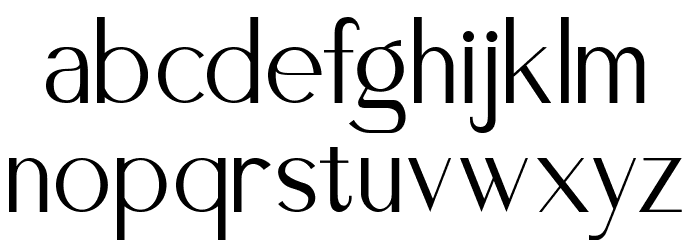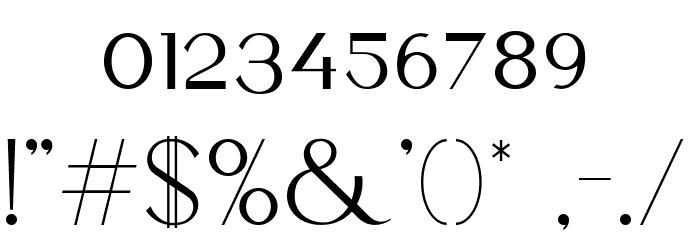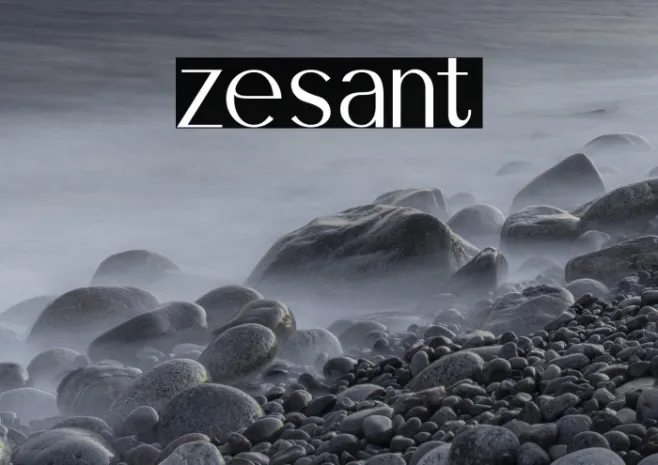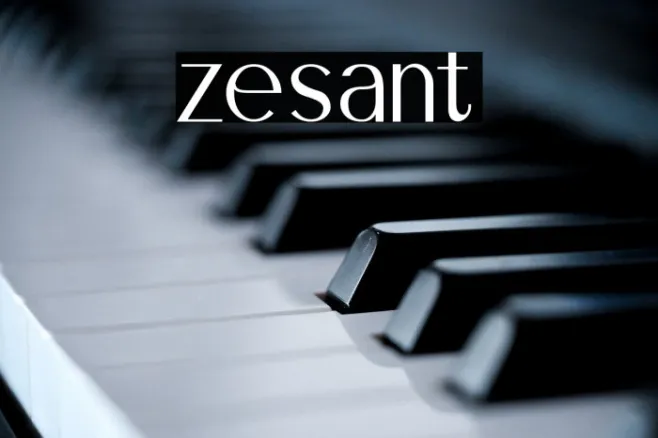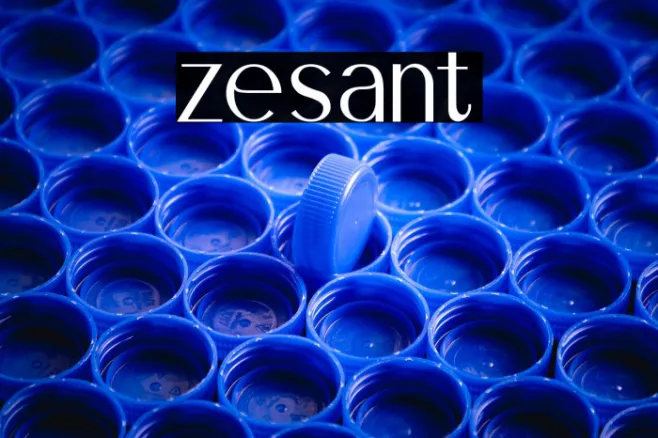
zesant Font
This font features a modern and sleek design with a high contrast between thick and thin strokes, giving it a sophisticated and elegant appearance. The uppercase letters are tall and slender, while the lowercase letters maintain a consistent style with slightly rounded edges, adding a touch of softness to the overall look. The numerals are clear and distinct, ensuring readability. Special characters are designed with the same attention to detail, making them harmonize seamlessly with the rest of the typeface. This font is versatile, suitable for both digital and print media, and can be used to create a contemporary and stylish aesthetic.
A modern, high-contrast font with sleek, elegant lines.
- Proposed Projects: Ideal for branding, editorial design, fashion magazines, and luxury product packaging.
- Use Case: Headlines, Logos, Editorial design